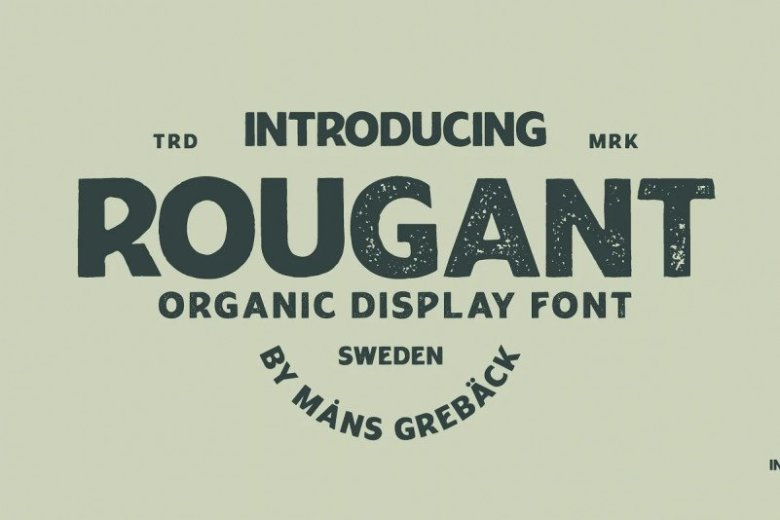
Rougant Font
Rougant Display Font is a new display typeface inspired by the vintage 70’s sign board, music, shop and movies. Use it for a motorcycle logotype or any graphic with a rock’n’roll vibe.
Rougant is built with advanced OpenType functionality and has a guaranteed top-notch quality. It has extensive lingual support, covering all Latin-based languages, from North Europa to South Africa, from America to South-East Asia. It contains all characters and symbols you’ll ever need, including all punctuation and numbers.